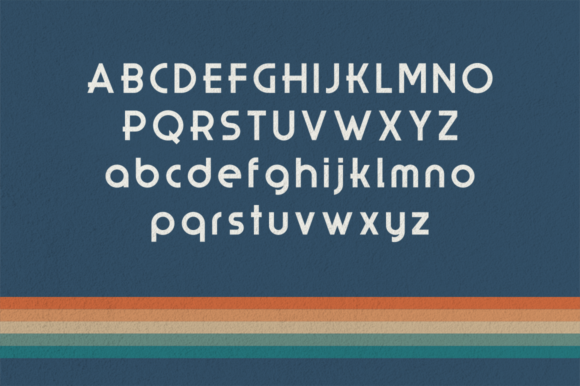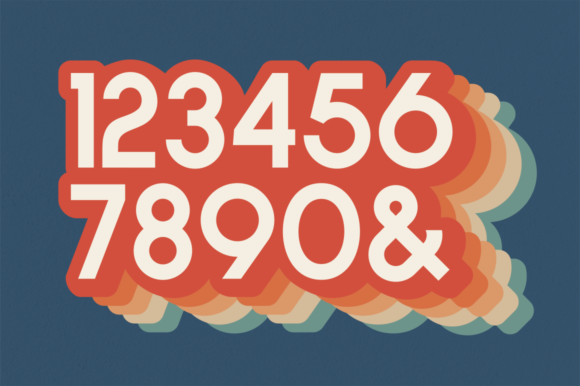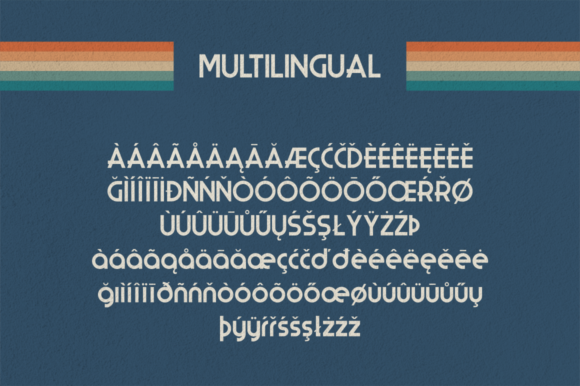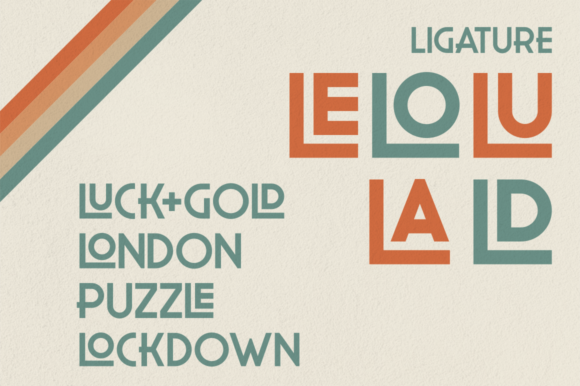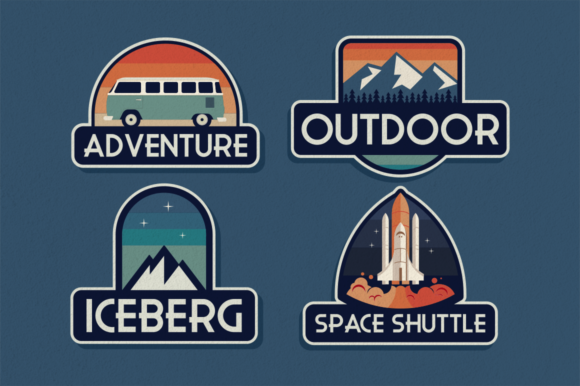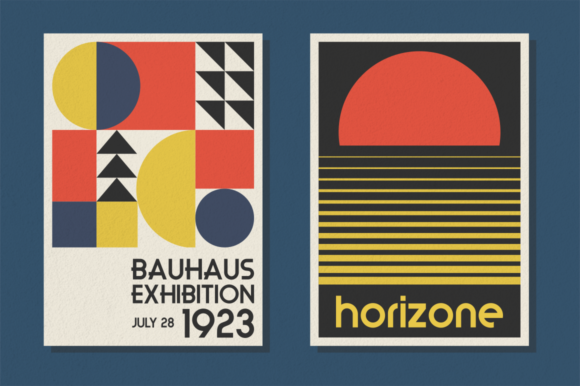
Introduction to Oldblue Font
Oldblue is an elegant display font.
It has a retro style that makes it perfect for logos, magazines, social media posts and much more .
Key Features of Oldblue Font